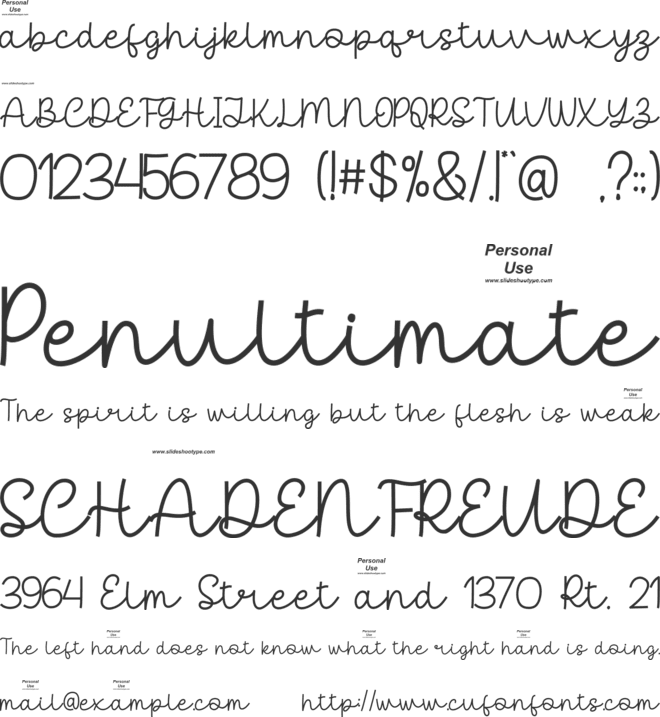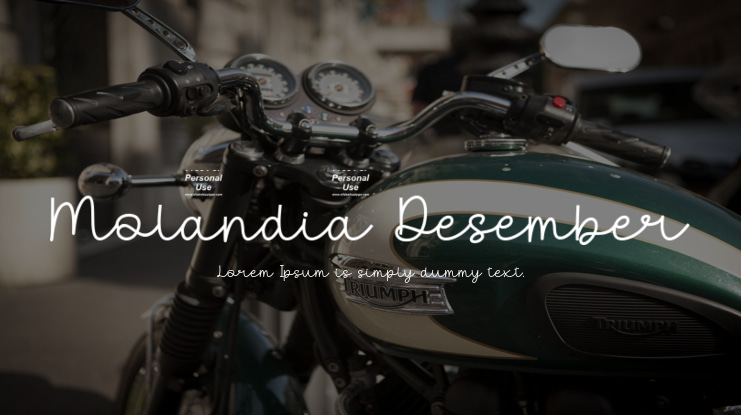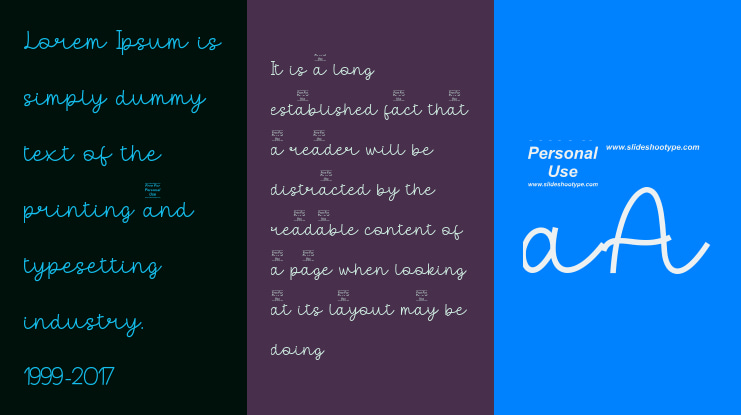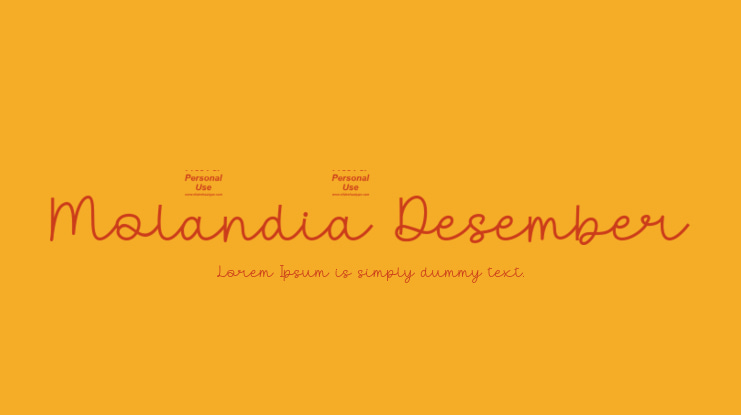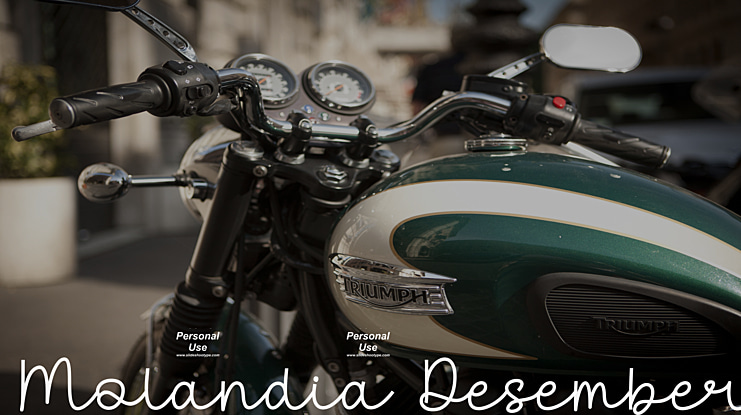
Molandia Desember Font
Hello everyone, I would like to introduce Molandia Desember a handwritten font with a casual and elegant style.
Molandia Desember can also be used for a variety of projects such as branding, labels, photography, invitations, stationery, wedding designs, social media posts, advertising, product packaging, product design and other awesome projects.